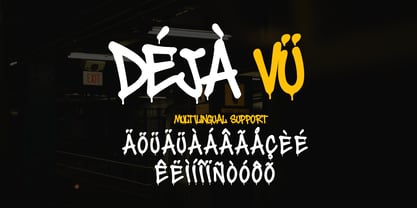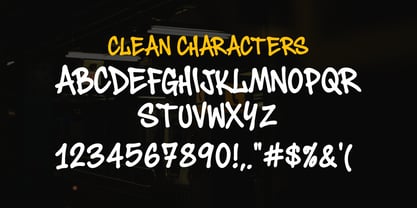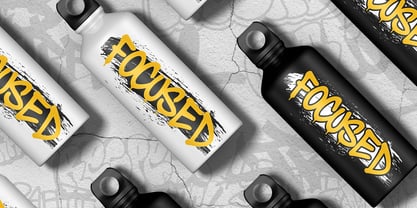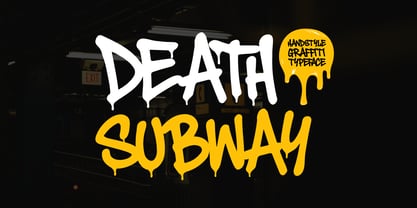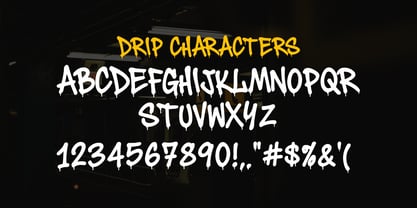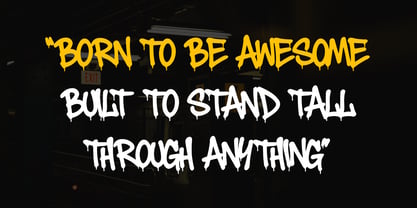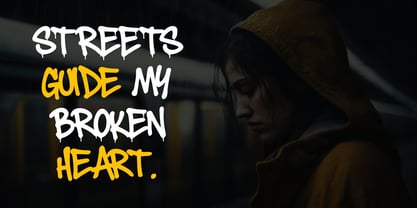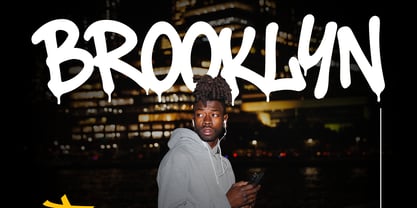
Death Subway
by Sipanji21
The Death Subway Font Family was designed by Sipanji and published by Sipanji21. Death Subway contains 2 styles and family package options. More about this family
Death Subway is a raw, energetic handstyle graffiti creation inspired by underground street art and urban rebellion. Designed for artists, designers, and brands who want to bring an authentic spray-paint aesthetic into their visuals, this font captures the true rhythm of graffiti culture — bold, fast, and fearless. It comes in two expressive styles: Clean and Drip. The clean version delivers tight, legible strokes, ideal for branding and typography that needs structure while maintaining its street soul. The drip style adds the essence of freshly painted walls and tagging energy, where ink drips bring motion and attitude to every word. Together, they create a visual identity that’s both artistic and rebellious. The name “Death Subway” reflects its roots in underground graffiti — the kind of art seen under bridges, on subway walls, and across the concrete jungle. Each letter in this typeface feels hand-crafted, with imperfect edges and natural flow inspired by real marker lines. It’s not just a font — it’s a visual shout of expression, confidence, and raw energy. Perfect for posters, apparel, album covers, stickers, event flyers, and streetwear branding, Death Subway thrives anywhere you need impact. Its organic flow works for both print and digital applications, from gritty merchandise designs to clean digital ads. Key Features Two authentic styles: Clean and Drip Handstyle graffiti look with realistic raw strokes Perfect for streetwear, hip-hop, music, and underground branding Multilingual support for international use Optimized for professional design software Why Designers Love It Death Subway captures the visual pulse of the street — spontaneous yet intentional, loud but controlled. Its dripping details add a bold texture that evokes urban authenticity and makes it stand out in any layout. Whether you’re designing a poster for a hip-hop concert or a t-shirt for a skate brand, it keeps the same rebellious DNA intact. This design isn’t polished — it’s powerful, emotional, and full of personality. It’s built for creators who love imperfection, rhythm, and movement in their typography. Use Cases Apparel & Merchandise: T-shirts, hoodies, tote bags, streetwear logos Print Media: Flyers, album covers, graffiti art prints, event posters Digital: Social campaigns, YouTube banners, thumbnails, stickers Branding: Edgy business identities, hip-hop events, skate shops Final Thoughts Death Subway isn’t for quiet designs — it’s for voices that want to be heard. It embodies the underground pulse of graffiti culture, balancing expressive drips with strong readability. Whether clean or raw, this font turns words into a statement.